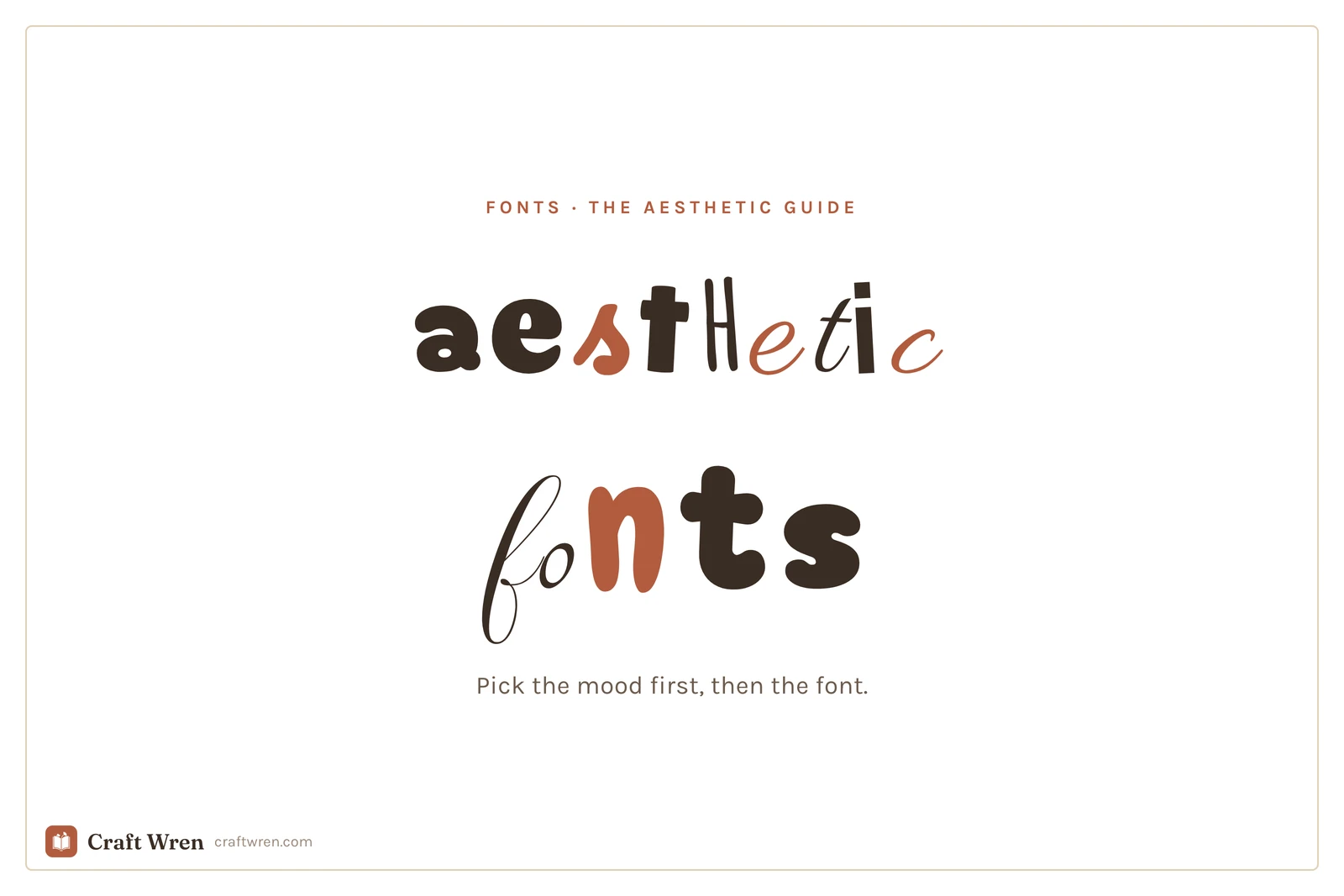
Aesthetic Fonts: A Vibe-by-Vibe Guide to the Prettiest Free Picks
You found the perfect quote for your vision board, typed it out, and it landed in plain Arial like a receipt. The words were right. The font made them look like a memo about the office fridge. So you opened a font site, scrolled past four hundred options with names like “Untitled-1,” and closed the tab with nothing.
The problem was never the quote. It was that “pretty font” is not a category you can search. Pretty for a coquette planner spread and pretty for a 70s record-store poster are two different animals, and a font dump sorted alphabetically tells you nothing about which is which.
Aesthetic fonts are display typefaces picked for a specific mood, like y2k, coquette, or cottagecore, rather than for plain readability. You choose them by vibe first, then by where you can download them free.
So this guide is sorted the way your eye actually works. By vibe. Pick the mood you are going for, grab a font or two from that section, and ignore the rest.
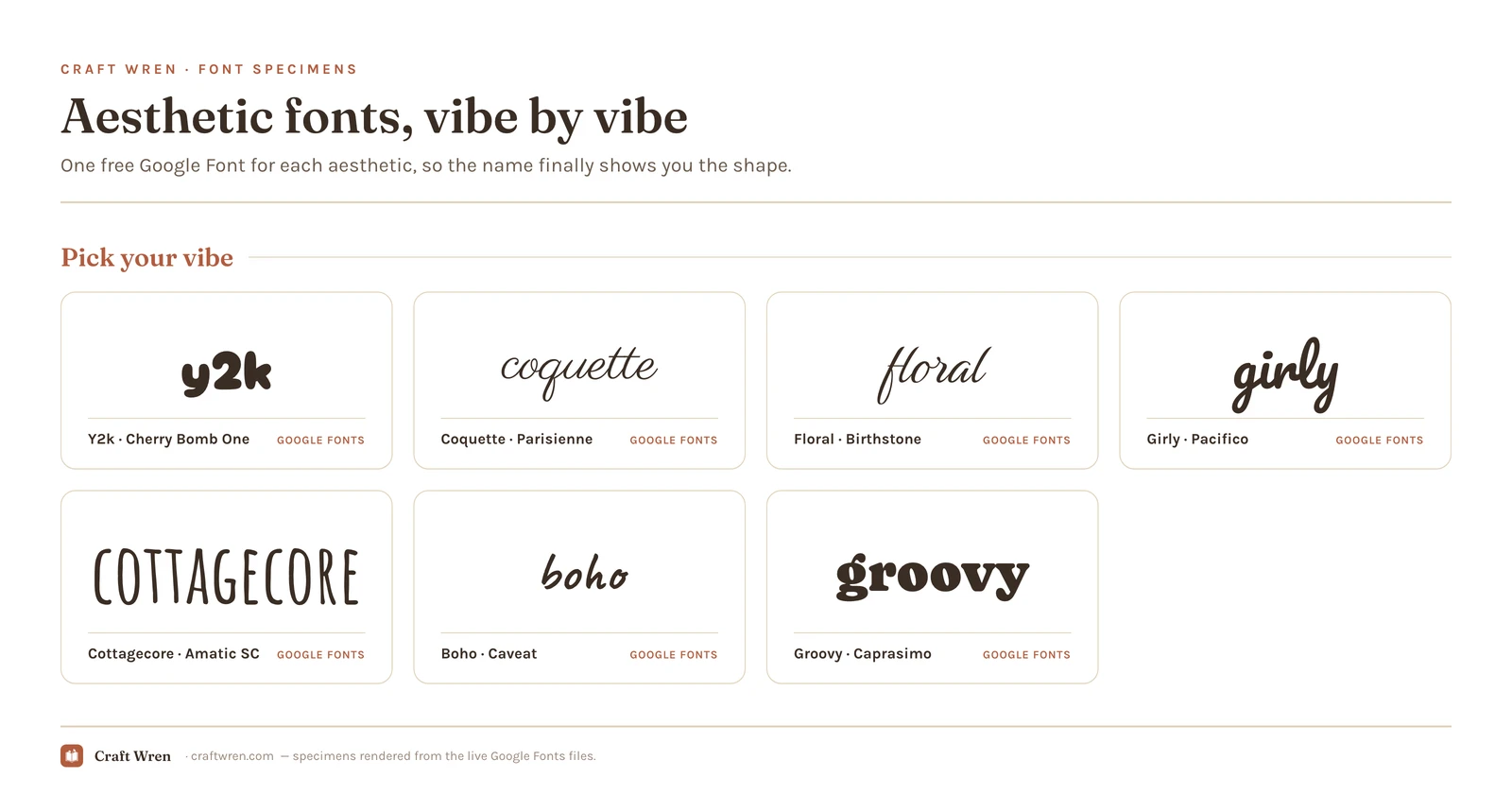
The thirteen aesthetic fonts side by side
Smallest print size is measured from each font file: the letter height at which the thinnest part of the stroke drops to 0.25 mm, which is roughly where home printing starts losing the line. Screens forgive more, vinyl forgives less.
| Font | Sub-style | What it gives you | Smallest print size |
|---|---|---|---|
| Cherry Bomb One | Y2k | Bubbly roundedness for headers | 1.7 mm |
| Bagel Fat One | Retro | Warm retro note, chunky display | 2.1 mm |
| Quicksand | Boho | Clean geometric boho choice | 2.1 mm |
| Caprasimo | Retro | Warm retro poster weight | 2.1 mm |
| Pacifico | Girly | Classic girly font workhorse | 2.3 mm |
| Caveat | Boho | Loose handmade boho script | 3.3 mm |
| Sue Ellen Francisco | Girly | Girly font workhorse, free | 4.6 mm |
| Amatic SC | Cottagecore | Narrow hand-cut capitals, quiet backbone | 4.6 mm |
| Birthstone | Floral | Romantic swash, the smaller-friendly one | 6.0 mm |
| Sorts Mill Goudy | Cottagecore | Old-style serif with book-page calm | 6.7 mm |
| Sevillana | Floral | The same swash, wants more room | 7.5 mm |
| Parisienne | Coquette | Loopy and fine-lined, forgiving at small sizes | 8.5 mm |
| Pinyon Script | Coquette | The same loops, needs nearly twice the height | 14.9 mm |
What makes a font “aesthetic” and not just a font
A working font, the kind you read a paragraph in, is built to disappear. An aesthetic font is built to be noticed. It carries a decade, a feeling, a whole Pinterest board in the shape of its letters.
That is why you use it in small doses. One aesthetic font for the title or the quote, one plain font for everything you actually have to read. Set your whole journal page in a curly script and you have made a beautiful thing nobody can get through. The vibe lives in the headline. The body stays out of the way.
So, vibe by vibe, from loudest to softest.
Y2k fonts, for the early-2000s chrome and bubble look
Y2k is glossy, round, a little bit MySpace. Think chrome lettering, inflated bubble shapes, and the kind of type that belongs on a CD case from 2002. It is the loudest aesthetic on this list and the most fun to overdo.
You will not find much true y2k on the buttoned-up free libraries, but bubbly rounded faces like Google’s Cherry Bomb One get you most of the way for headers, and dedicated chrome and gel fonts live on dafont and Creative Fabrica. For the full breakdown of which ones actually read at planner size, see y2k fonts.
Coquette fonts, soft and romantic with a bow on top
Coquette is the dainty one. Thin scripts, delicate serifs, the typographic version of a ballet flat and a ribbon. It works for affirmations, wedding details, anything that wants to feel tender rather than shouty.
Parisienne and Pinyon Script are the easy entry point, free on Google Fonts: loopy, fine-lined, and forgiving at small sizes. Pair one with a quiet serif so it does not tip into illegible. The deeper picks, including the pillowy bubble styles, are in coquette fonts.
Floral fonts, for botanical swashes and vintage romance
Floral fonts lean decorative: curling swashes, vine-like terminals, sometimes actual flowers tucked into the capitals. They suit garden-party invitations, pressed-flower journal spreads, and anything cottage-adjacent.
Birthstone and Sevillana on Google Fonts give you that romantic swash without a download. For the layered, illustrated styles, plus how to keep a floral font from turning to mush when you print it small, see floral fonts.
Girly fonts, playful and handwritten
Girly is bubbly, bouncy, a little handwritten. Less precious than coquette, more fun: the lettering you would put on a birthday card or a sticker sheet. Pacifico and Sue Ellen Francisco are the workhorses, both a free download from Google Fonts.
How many aesthetic fonts should I use on one page?
One. Pair a single aesthetic font for the title or quote with one plain font for everything you need to read. Two display fonts competing for the eye is what tips a page from styled into chaotic.
What is the most popular aesthetic font style right now?
Coquette and y2k are the two driving most searches lately, the soft ribbon-and-bow look on one end and the glossy early-2000s chrome look on the other. Cottagecore and floral hold steady with the journaling crowd because they pair so easily with each other.